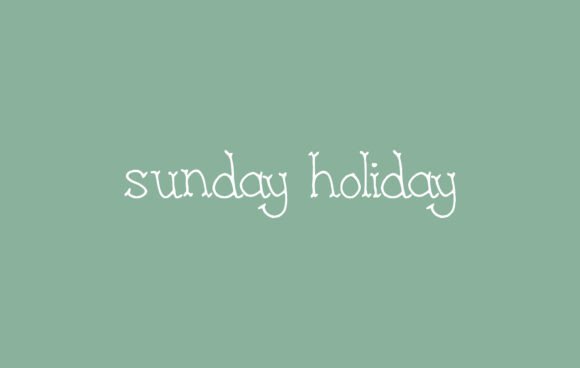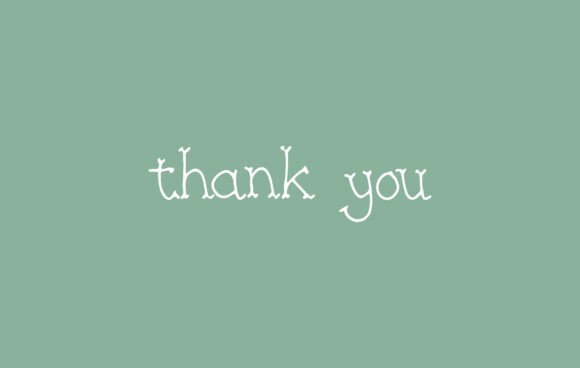
Introduction to Cyanverse Font
Have you ever stumbled upon a font that makes you feel like a child again, gazing at the pages of a beloved fairy tale? That’s exactly what happens when you come across the enchanting Cyanverse Font. Its whimsical serif design, adorned with delicate curves, is the perfect catalyst for sparking creativity in your next project.
As a designer, you know the value of having high-quality design resources at your fingertips. The Cyanverse Font is a treasure trove of creative possibilities, offering a transparent background that allows your designs to shine. Whether you’re working on a children’s book title, a fantasy novel cover, or a whimsical website, this font is an ideal choice for adding a touch of magic to your work.
Key Features of Cyanverse Font
- High-quality font with a unique and futuristic design, perfect for creative projects.
Honest Review: Cyanverse Font
I recently came across the Cyanverse Font, a free download that caught my eye with its high quality and unique style. The first thing I noticed was the transparent background, which adds a level of sophistication to any design project. This font is perfect for a creative project where you want to add a touch of elegance.
Here are some of the things that work well with the Cyanverse Font: ✨
- Unique and modern design
- High quality, making it perfect for print or digital projects
- Transparent background, allowing for easy customization
- Limited character set, which may not be suitable for longer text
- No bold or italic versions, which may limit its use in certain situations
Overall, I’m impressed with the Cyanverse Font and would definitely consider using it for my next creative project. Its unique design and high quality make it a great addition to any designer’s toolkit.
For the most out of the Cyanverse Font, use it for headings and titles in your design projects. The font’s unique style makes it perfect for creative projects, such as logos, branding materials, and infographics. Additionally, the font’s high-quality design and transparent background feature make it suitable for presentations, posters, and brochures.